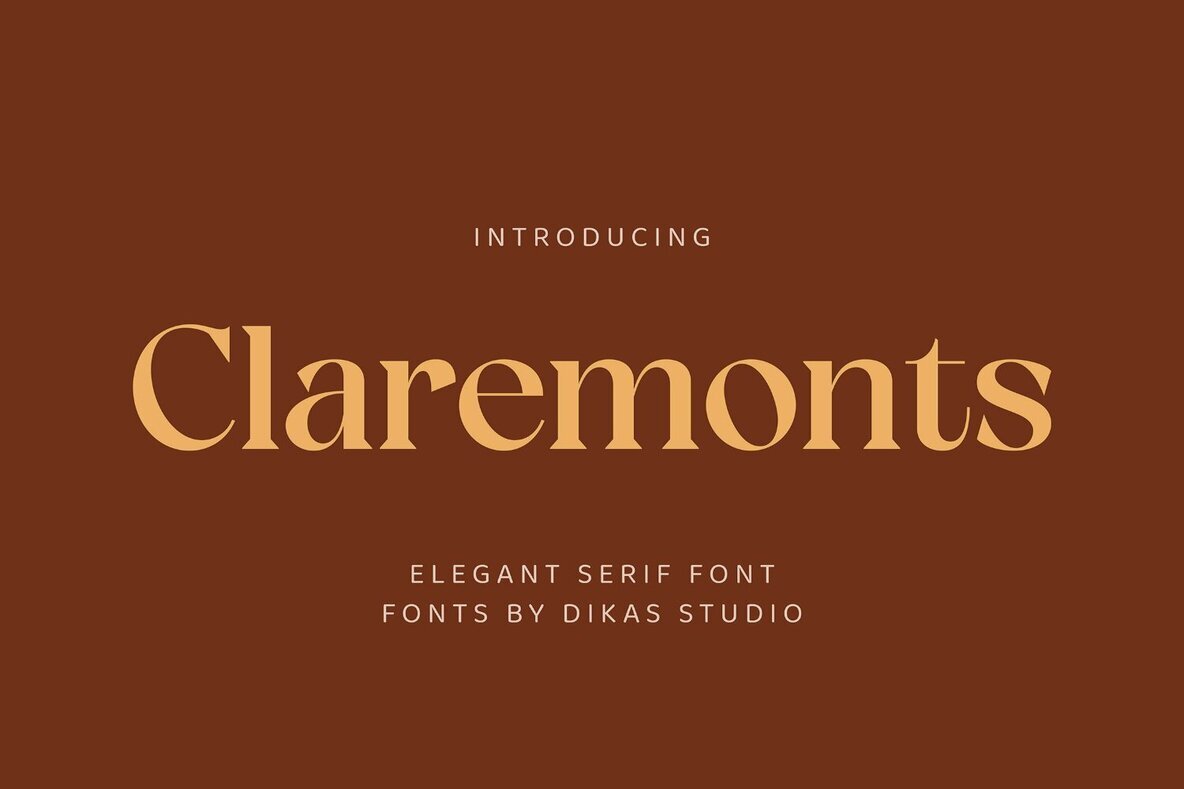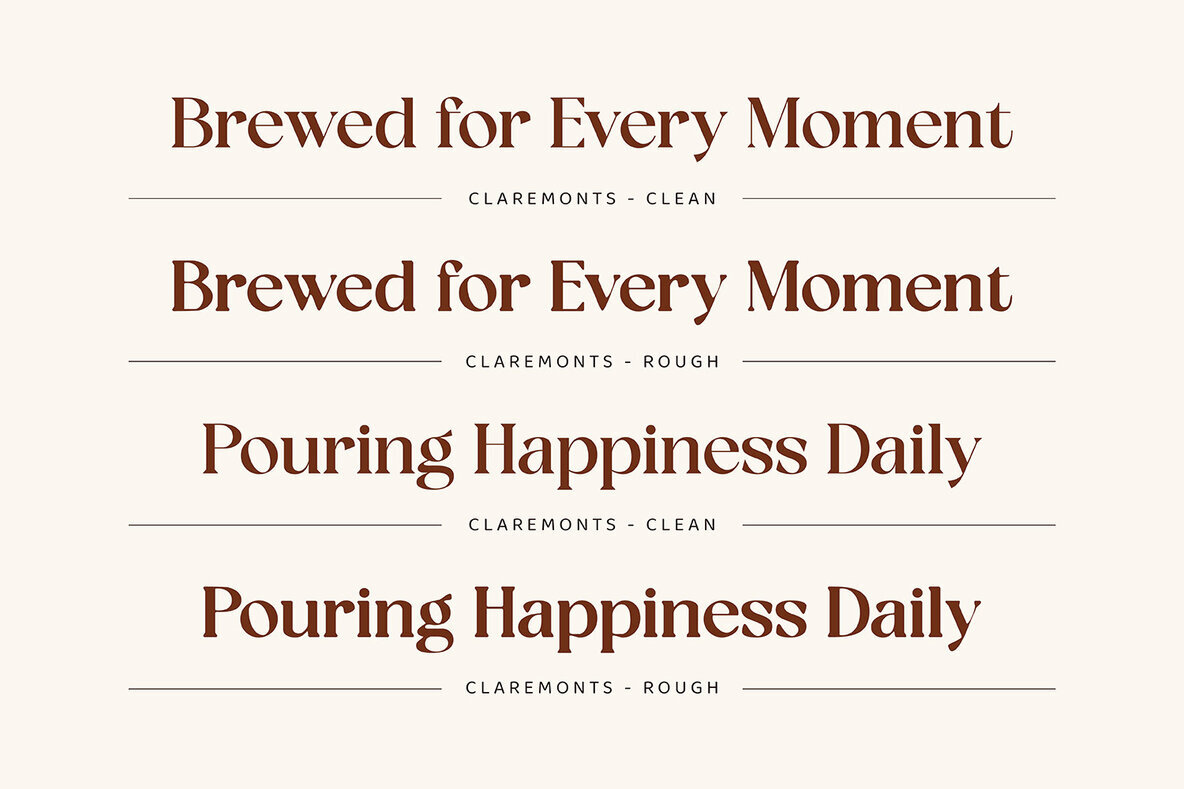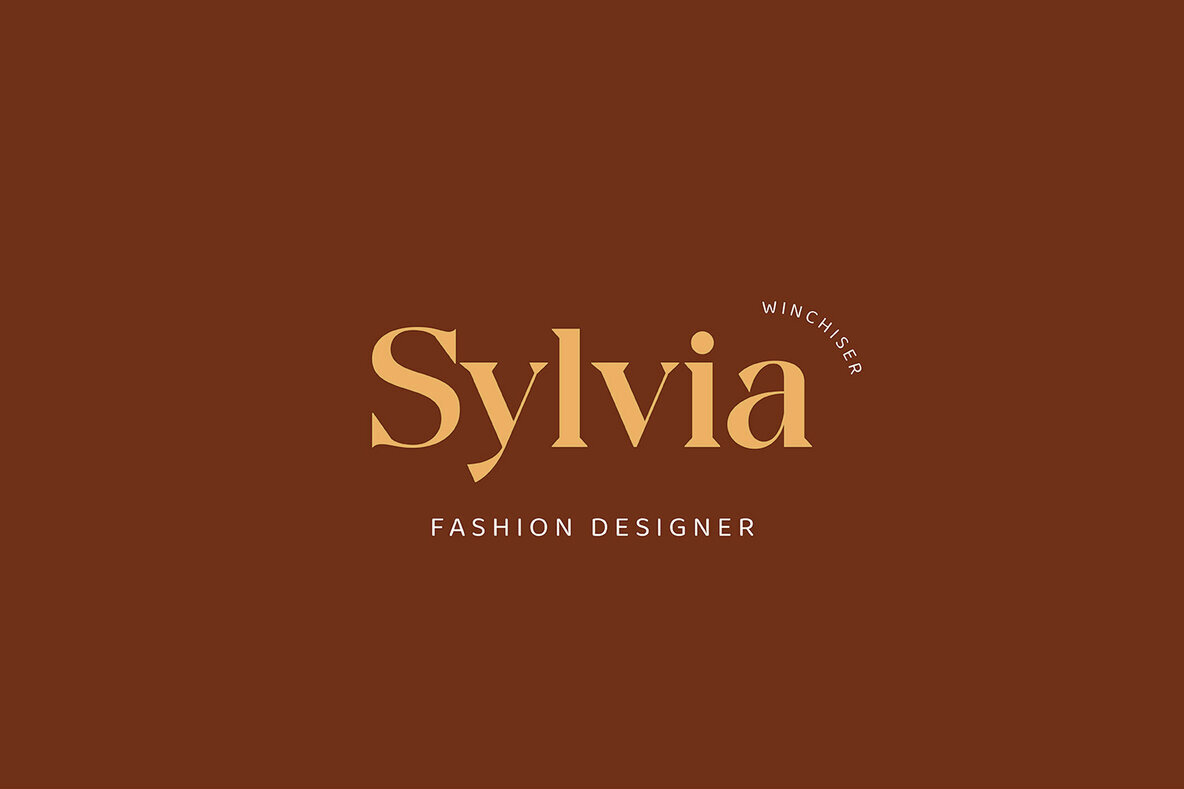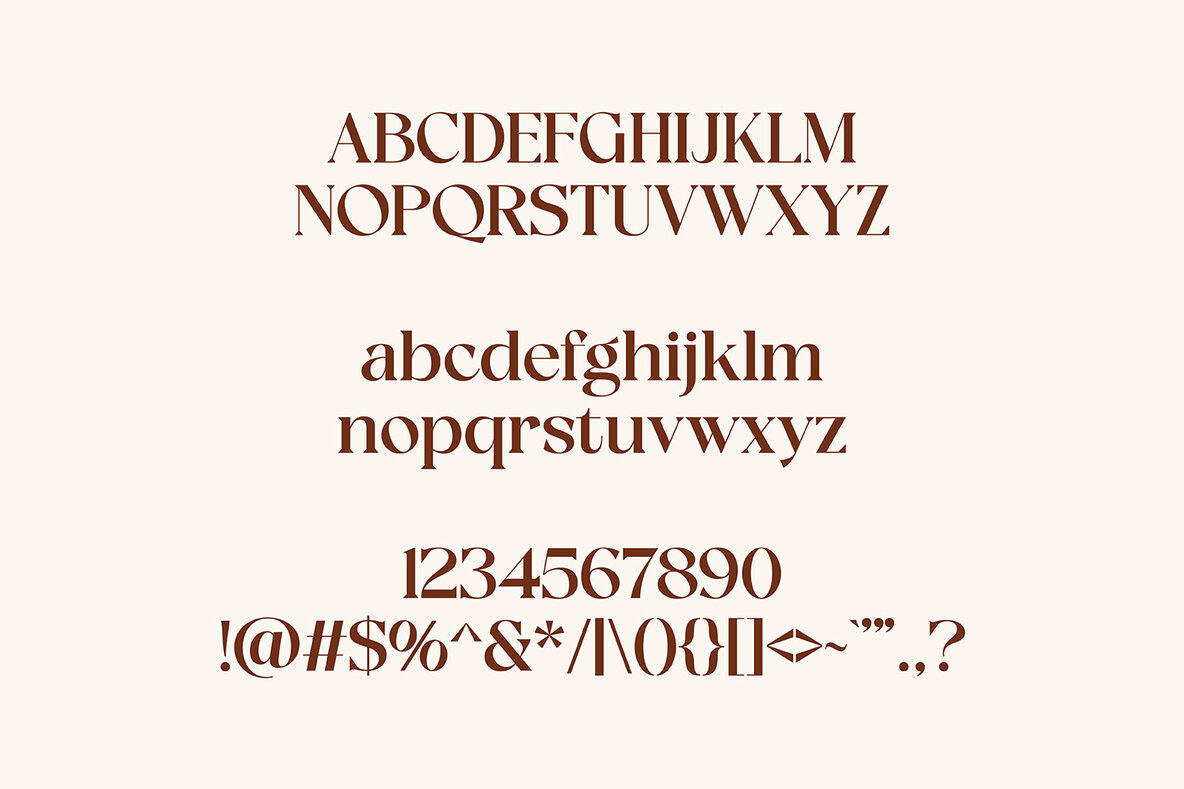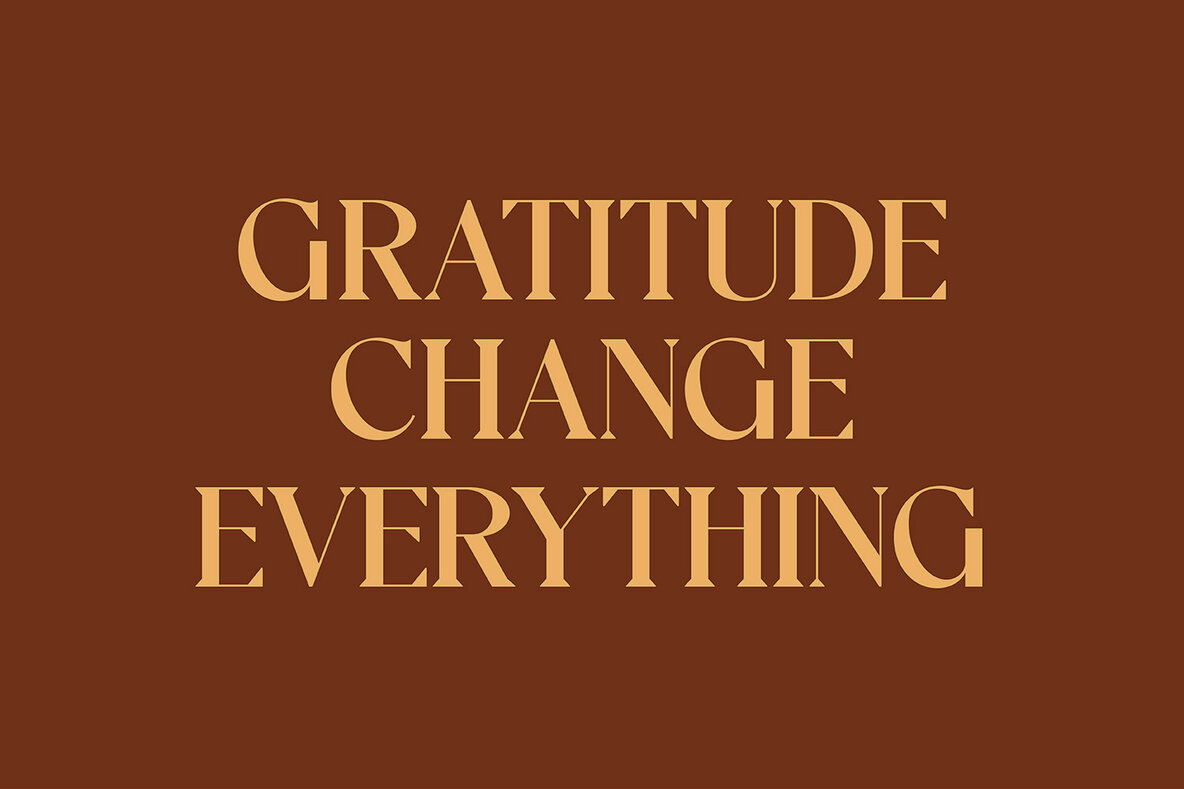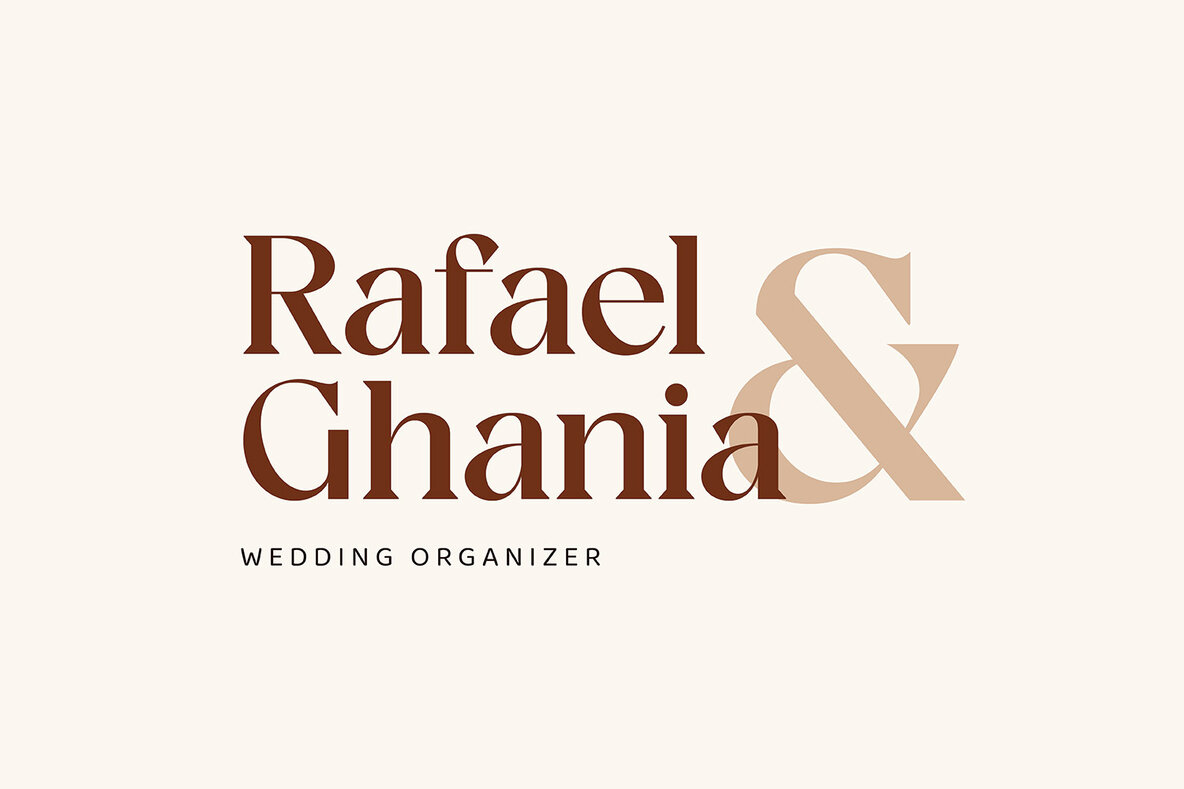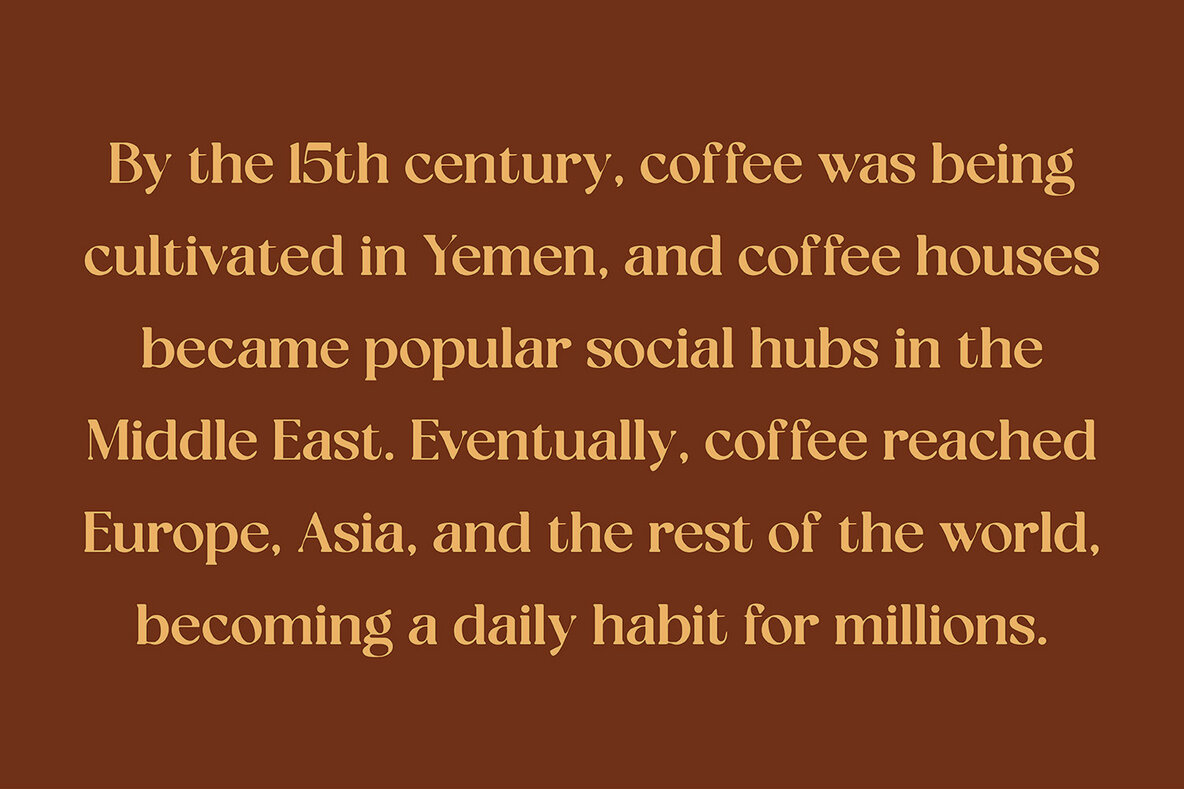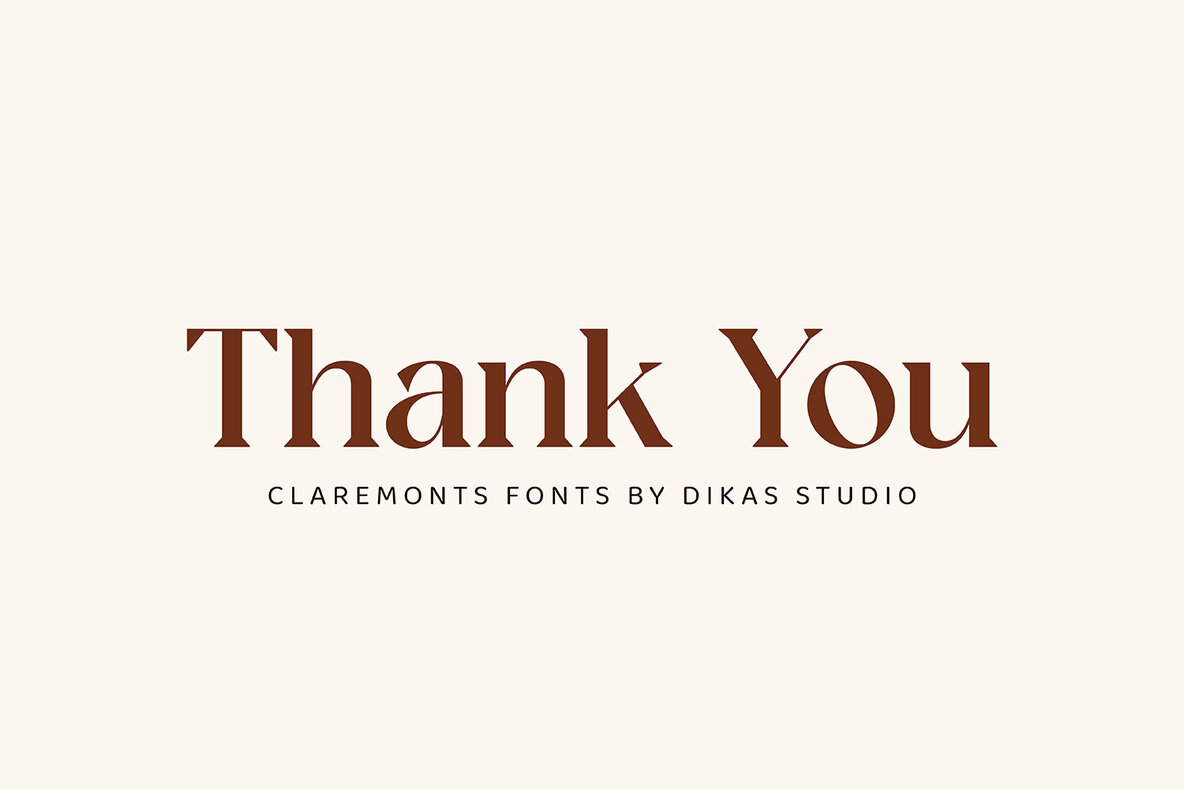
Claremonts Font
DKS Claremonts Regular
DKS Claremonts Rough
The Claremonts font offers a striking blend of sophistication and boldness, making it perfect for projects demanding elegance and impact. As a bold serif with contrasting details, Claremonts lends itself exquisitely to headlines, logos, and fashion branding, while maintaining an editorial finesse suited for various layouts.Claremonts: Bold Elegance in Serif
Design Versatility